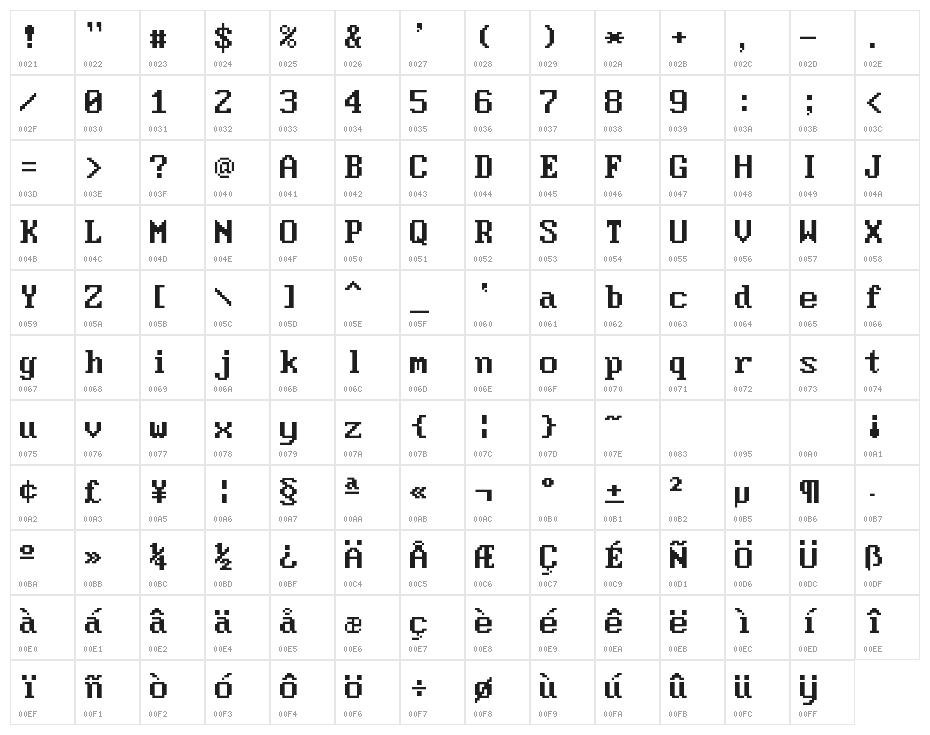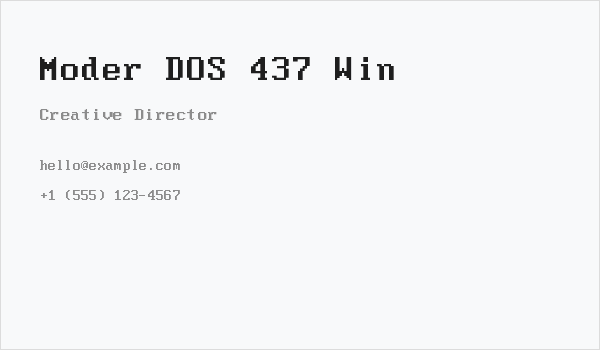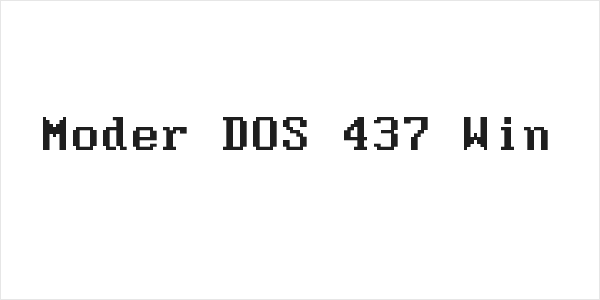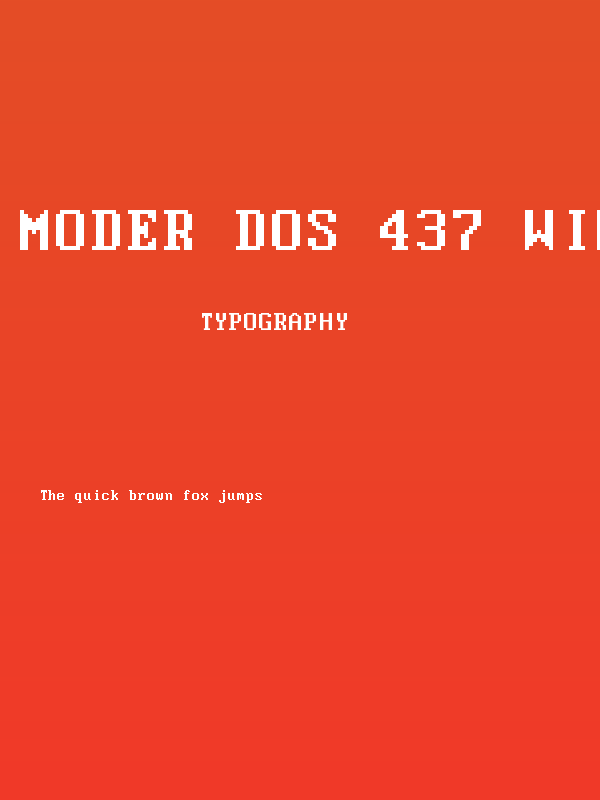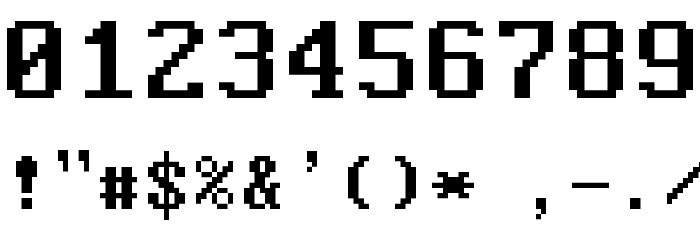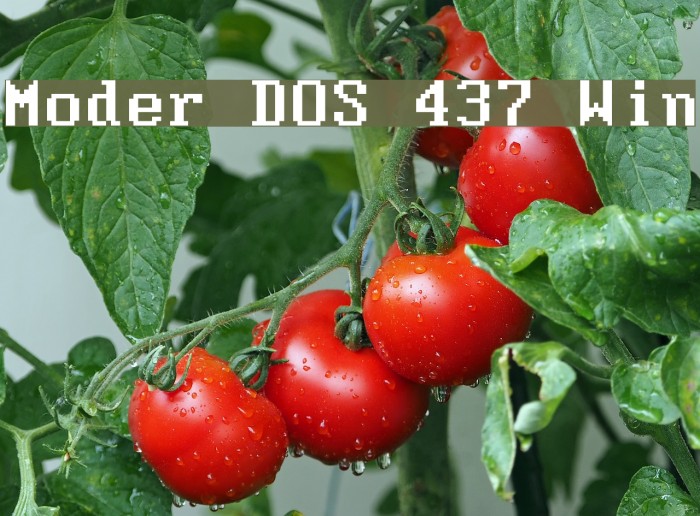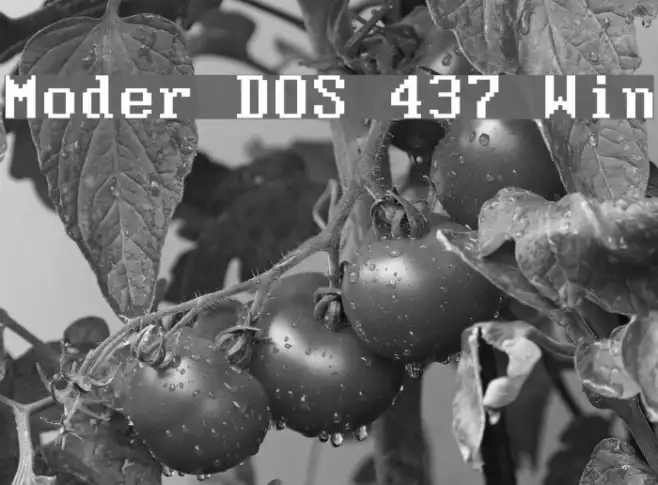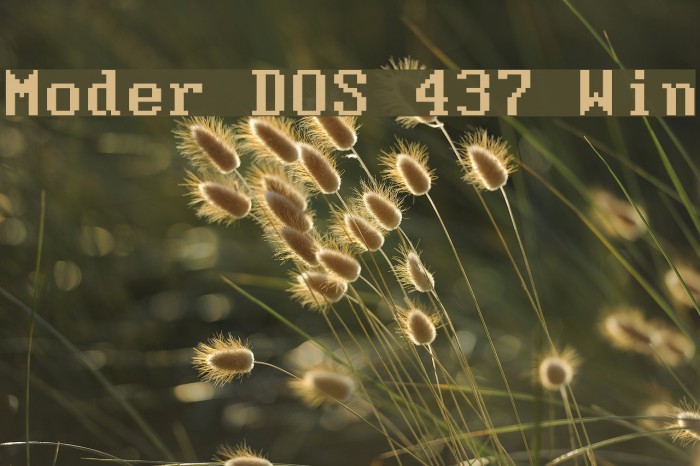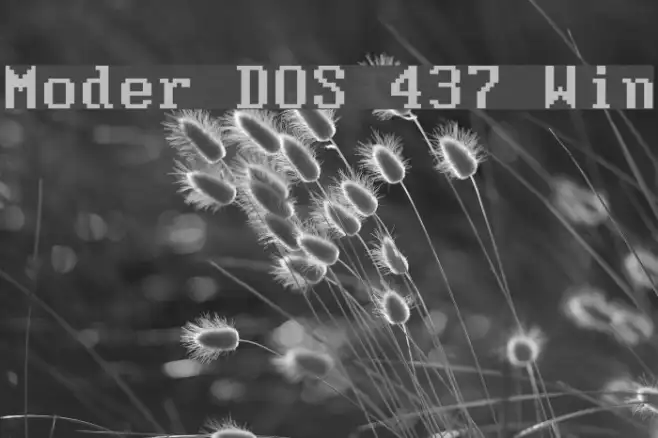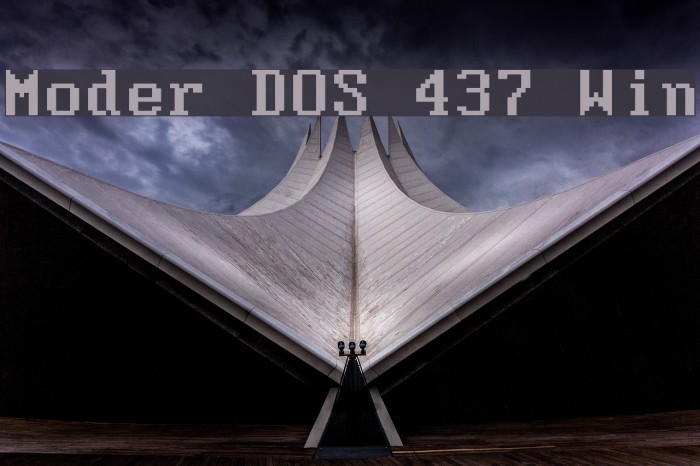
Moder DOS 437 Win Font
Moder DOS 437 Win Description
This font features a classic pixelated design reminiscent of early computer systems and video games. Each character is composed of small, square pixels, creating a blocky and retro aesthetic. The uppercase and lowercase letters maintain a consistent height and width, contributing to a uniform appearance. The numbers and special characters follow the same pixelated style, ensuring a cohesive look across all elements. This font evokes nostalgia and is ideal for projects that aim to capture the essence of vintage computing or retro gaming.
| Use Case | Logos, Digital displays, Retro-themed designs |
| Proposed Projects | Ideal for retro video games, digital art projects, and nostalgic branding. |